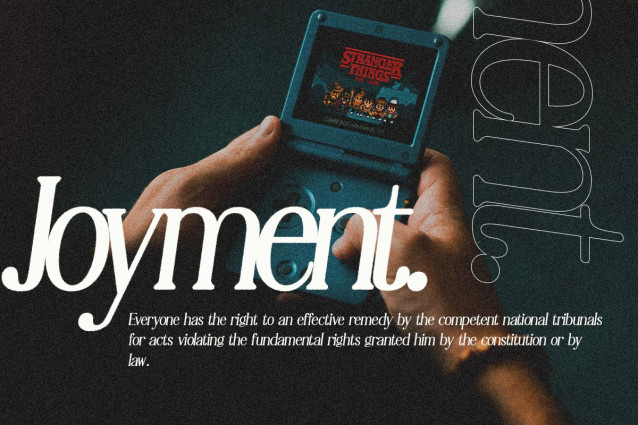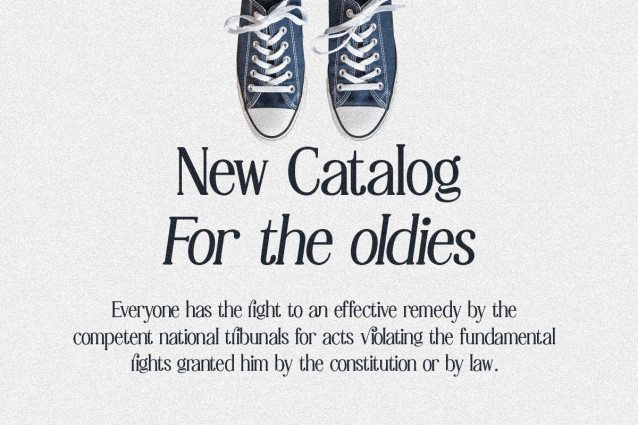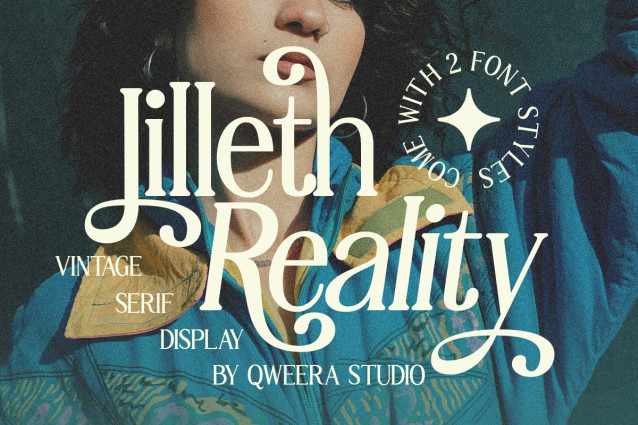
Lilleth Reality Font
Lilleth Reality Font is a vintage serif font inspired by the iconic retro style of the 70s. This unique typeface blends bold and elegant elements, making it perfect for creating standout designs with a nostalgic yet modern feel.
Featuring regular and italic styles, Lilleth Reality includes stylish alternates and ligatures, offering effortless customization for your creative projects. It’s an ideal choice for posters, magazines, branding, and print materials, ensuring your designs look polished and professional.
Elevate your designs with the timeless charm and retro vibes of Lilleth Reality, a font that adds personality and sophistication to every project.